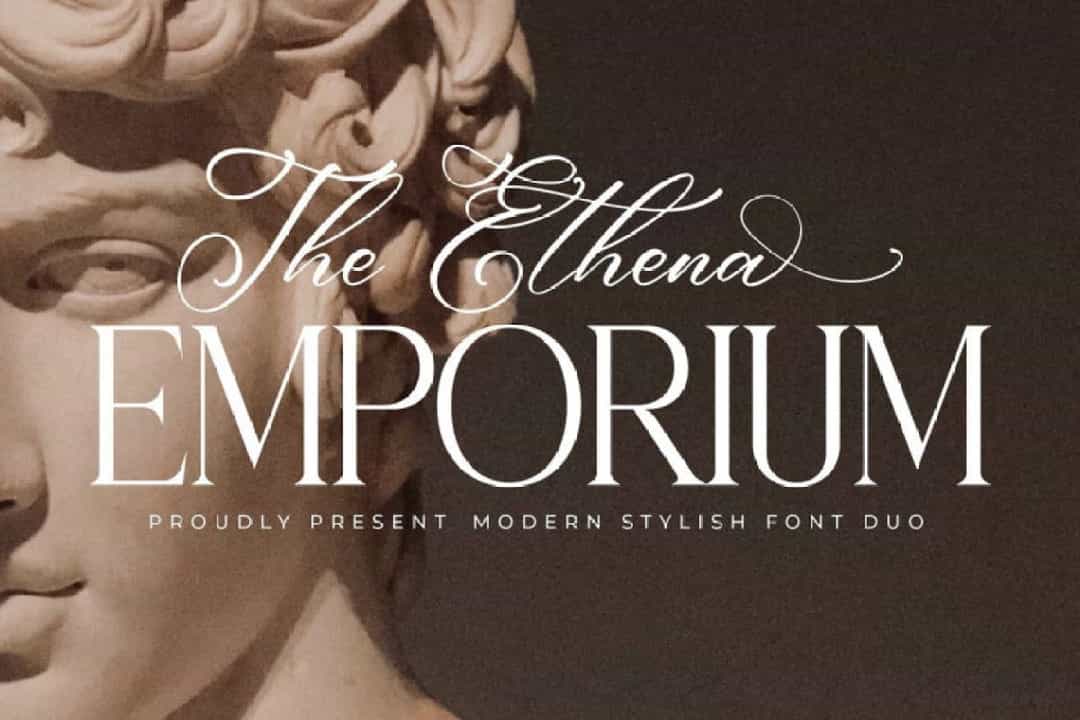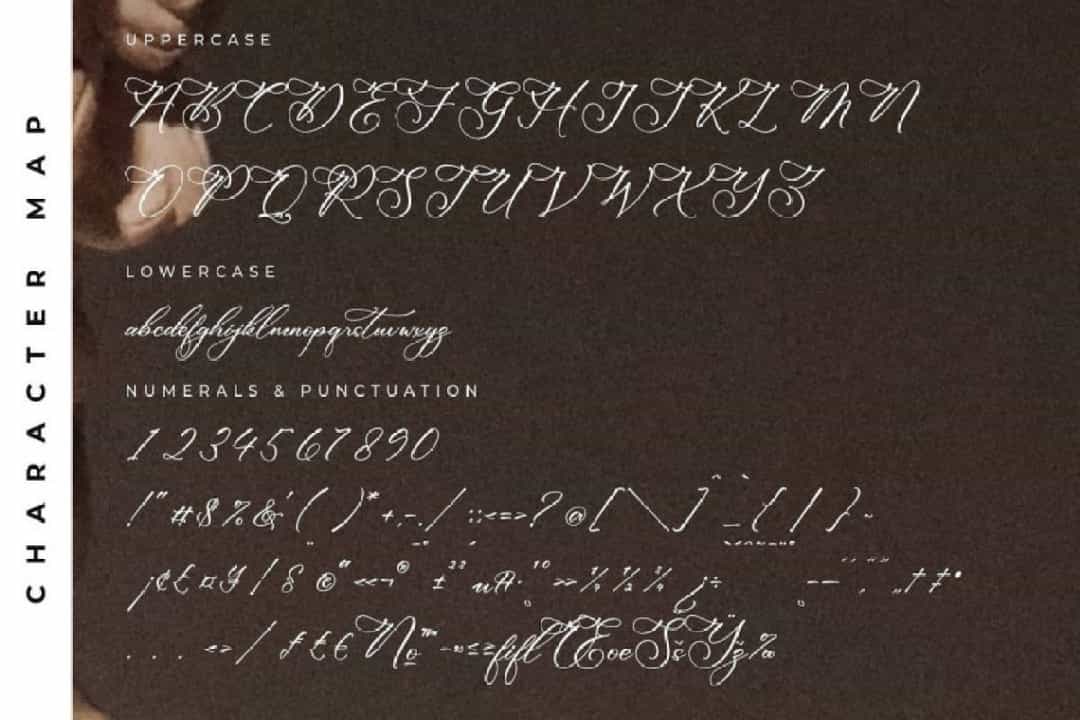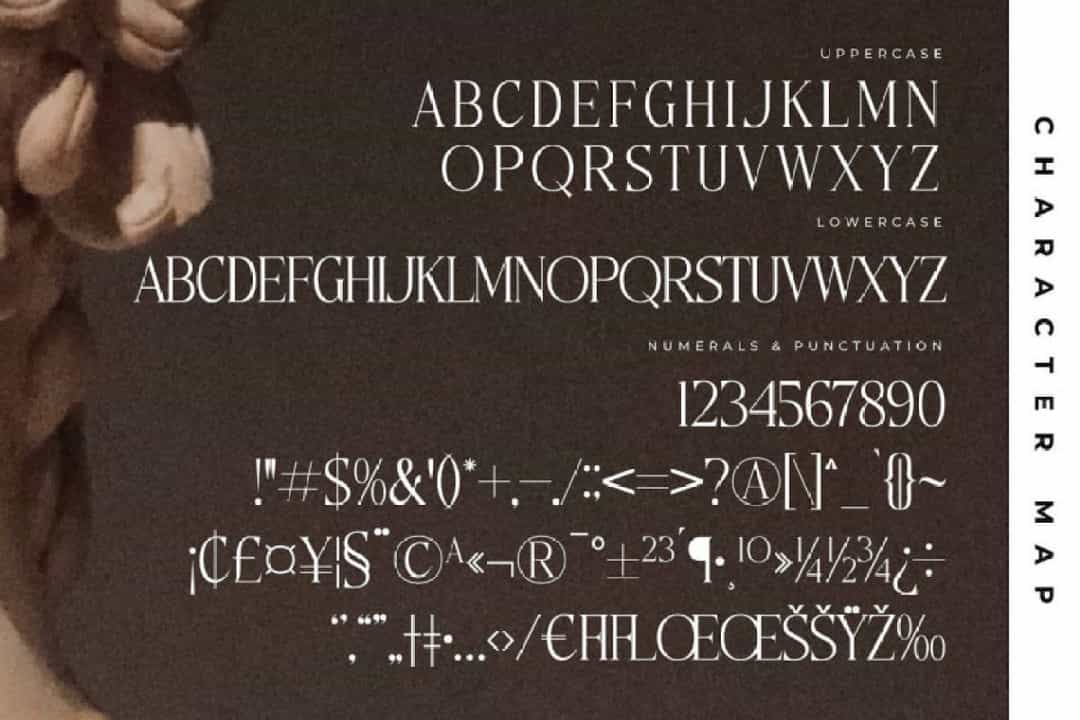
Ethena Emporium Font Duo is an esoteric and script typeface with its own distinct style and contemporary look, perfect for creating luxurious logos, book or film titles and fashion labels, fashion magazine letters, clothing quotes or many other projects.